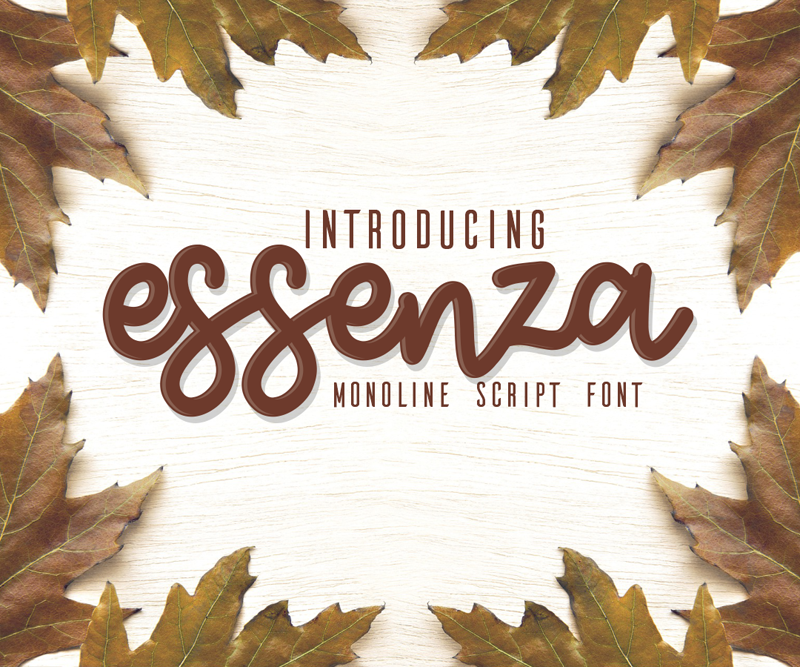
Font name: | Essenza |
Author: | Almaz.id |
Note by Almaz.id | |
Essenza is a handwriting font with monoline script style, Essenza clean lines and sharp edges make it a perfect script fonts for weddings. This demo font is for PERSONAL USE ONLY! Please contact me before any commercial use. My fonts for free use allowed only in personal project, non-profit and charity use. If you make money from using my fonts, Please purchase a commercial license here : https://almazstd.com/fonts/essenza/ But any donation are very appreciated. PayPal account for donation : https://www.paypal.me/almazstd For more information about my fonts, please check on my web; www.almazstd.com THANK YOU... :) |